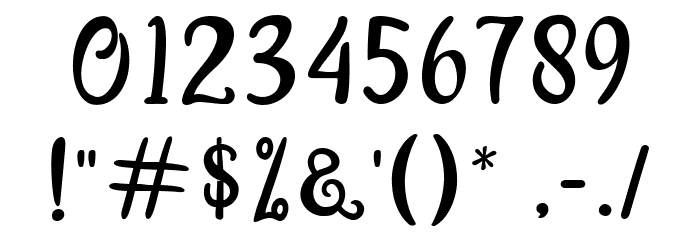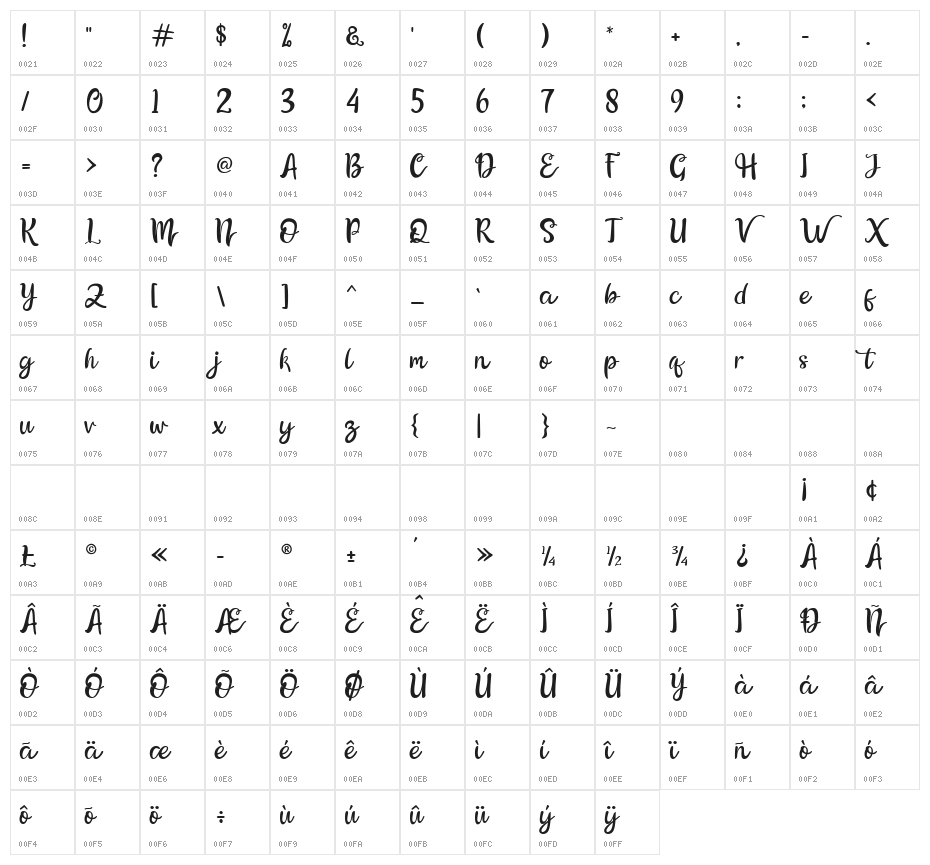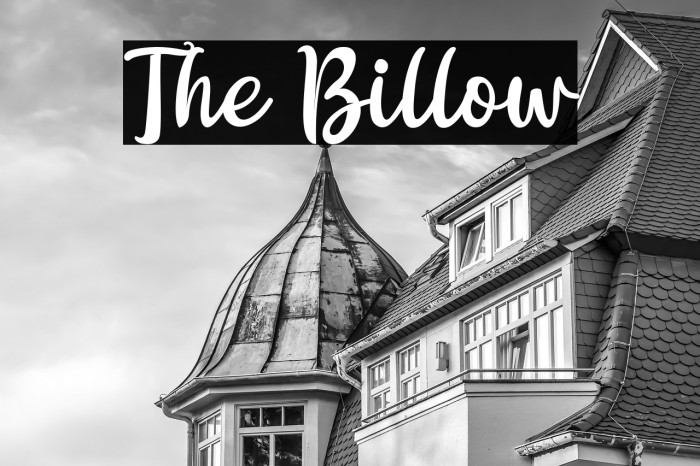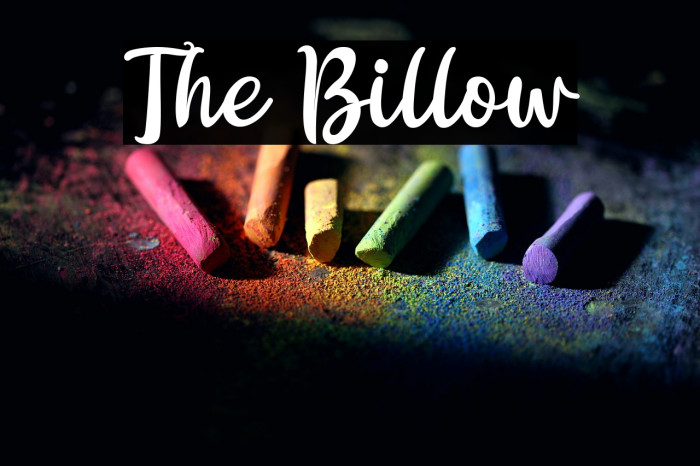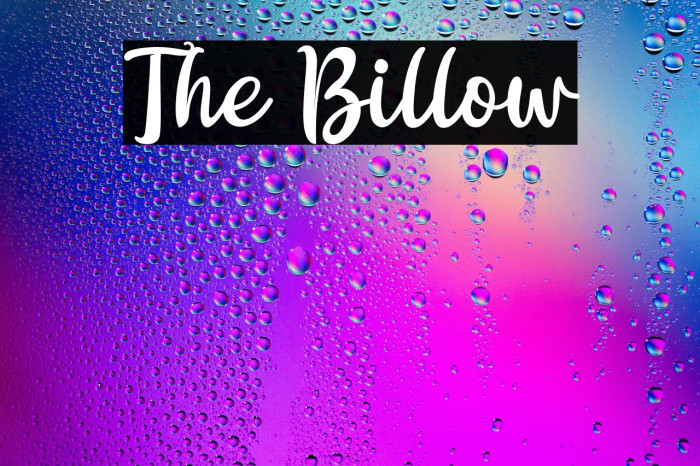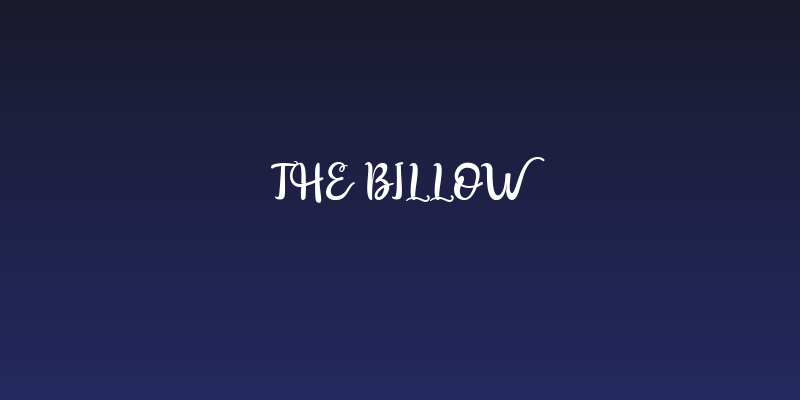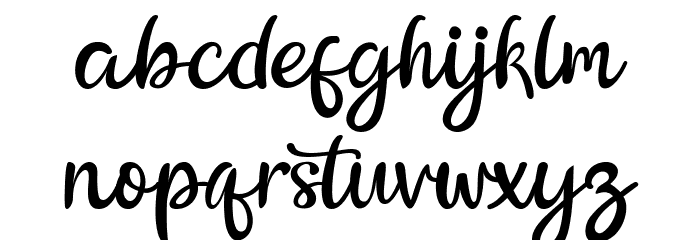
The Billow Font
The Billow Description
This font features a playful and flowing script style with a handwritten appearance. The characters are connected in a smooth, cursive manner, giving it a lively and dynamic feel. The uppercase letters are bold and prominent, while the lowercase letters maintain a consistent flow with subtle variations in stroke width. The numerals are rounded and maintain the same playful style, making them easily readable. Special characters are integrated seamlessly, maintaining the overall aesthetic. This font is perfect for projects that require a personal touch and a sense of elegance.
| Use Case | Logos, Invitations, Social Media Graphics |
| Proposed Projects | Ideal for wedding invitations, greeting cards, branding, and social media graphics. |